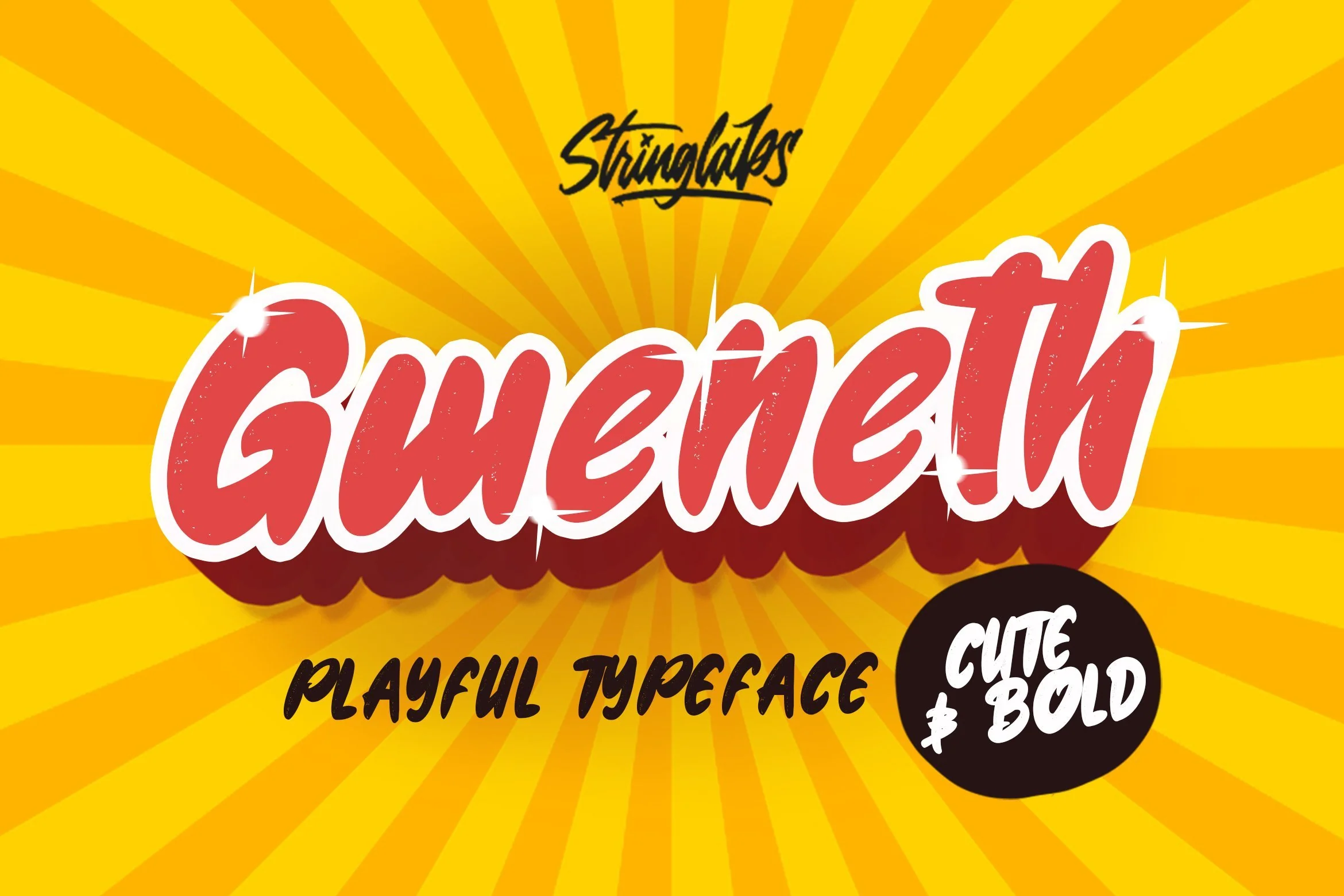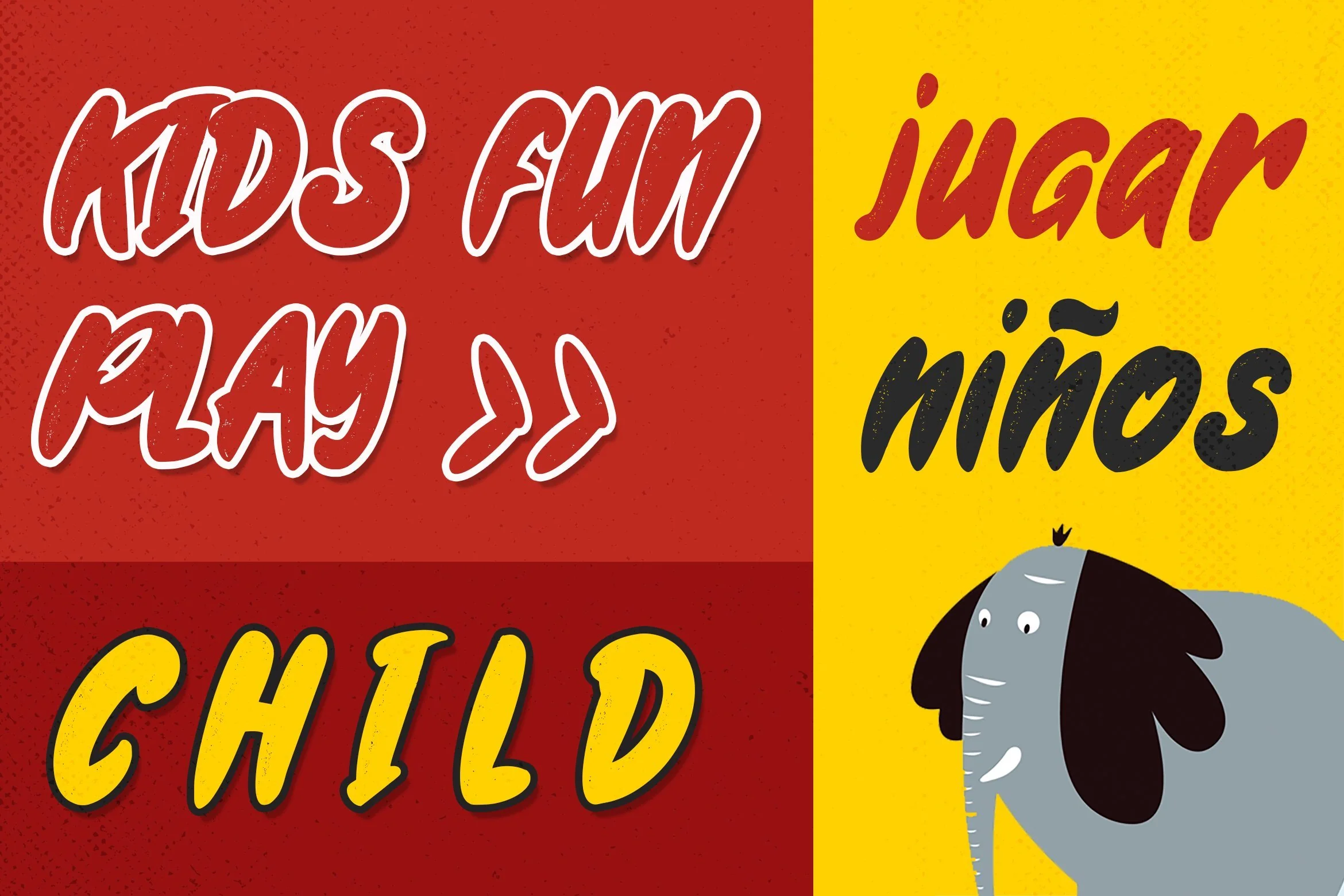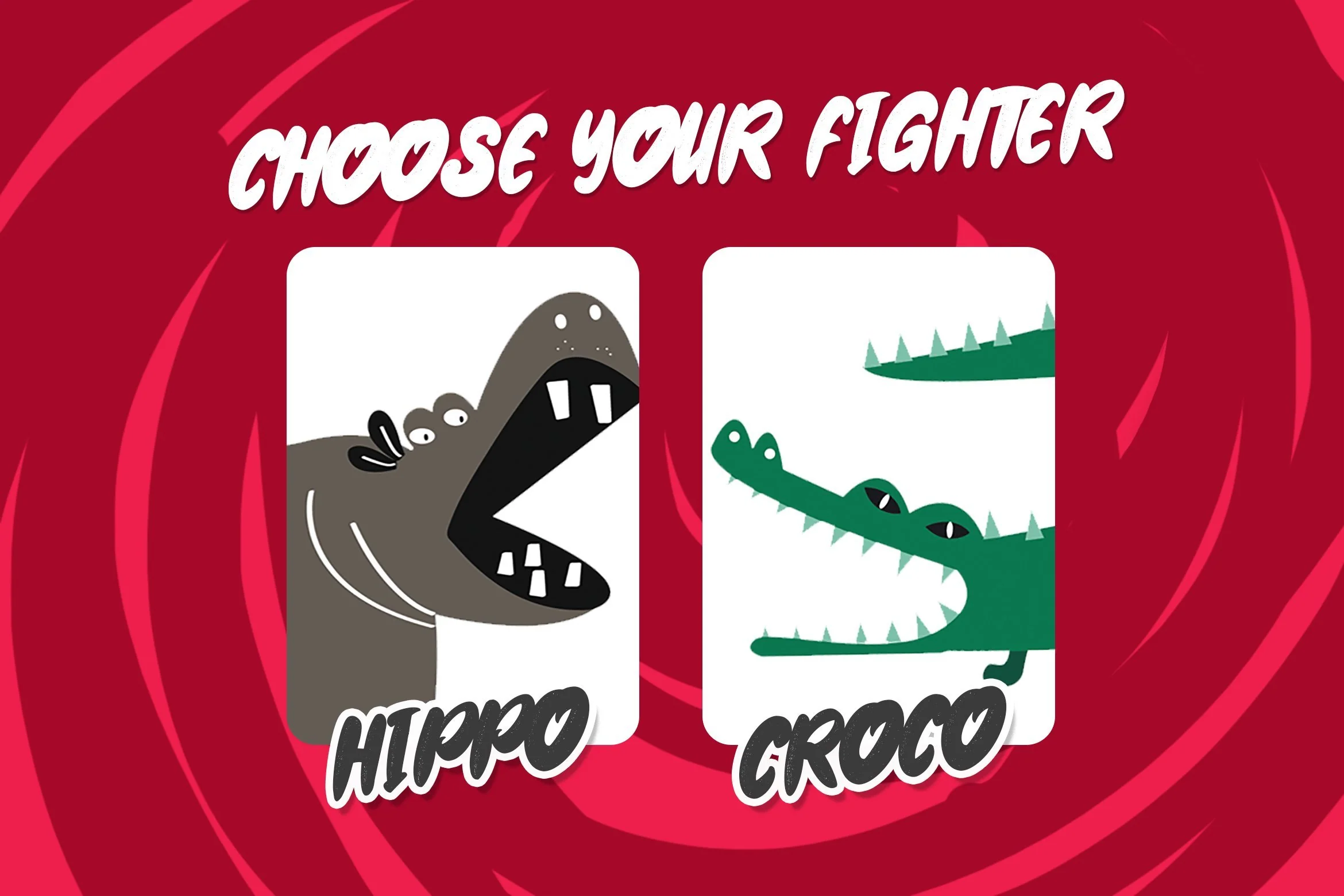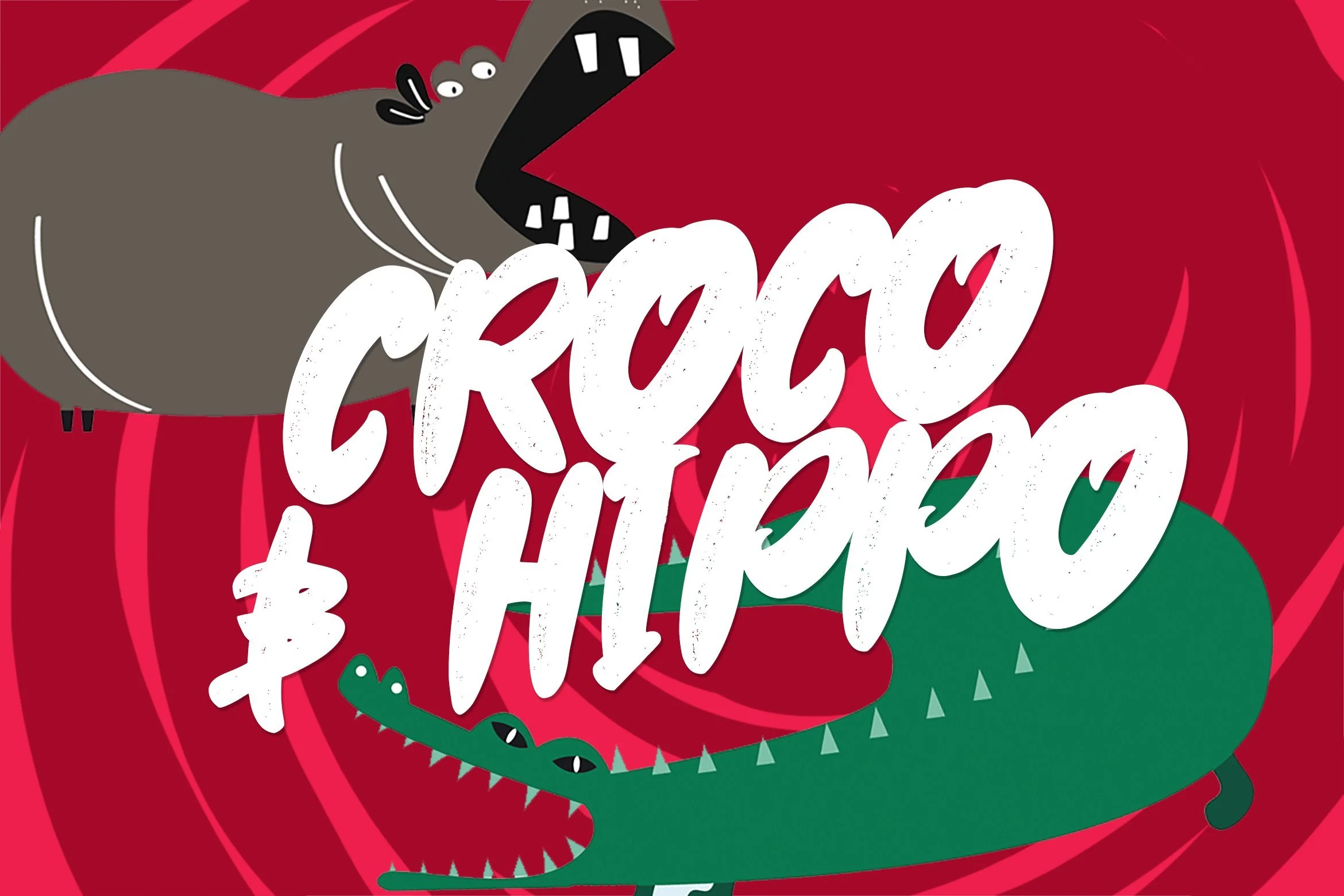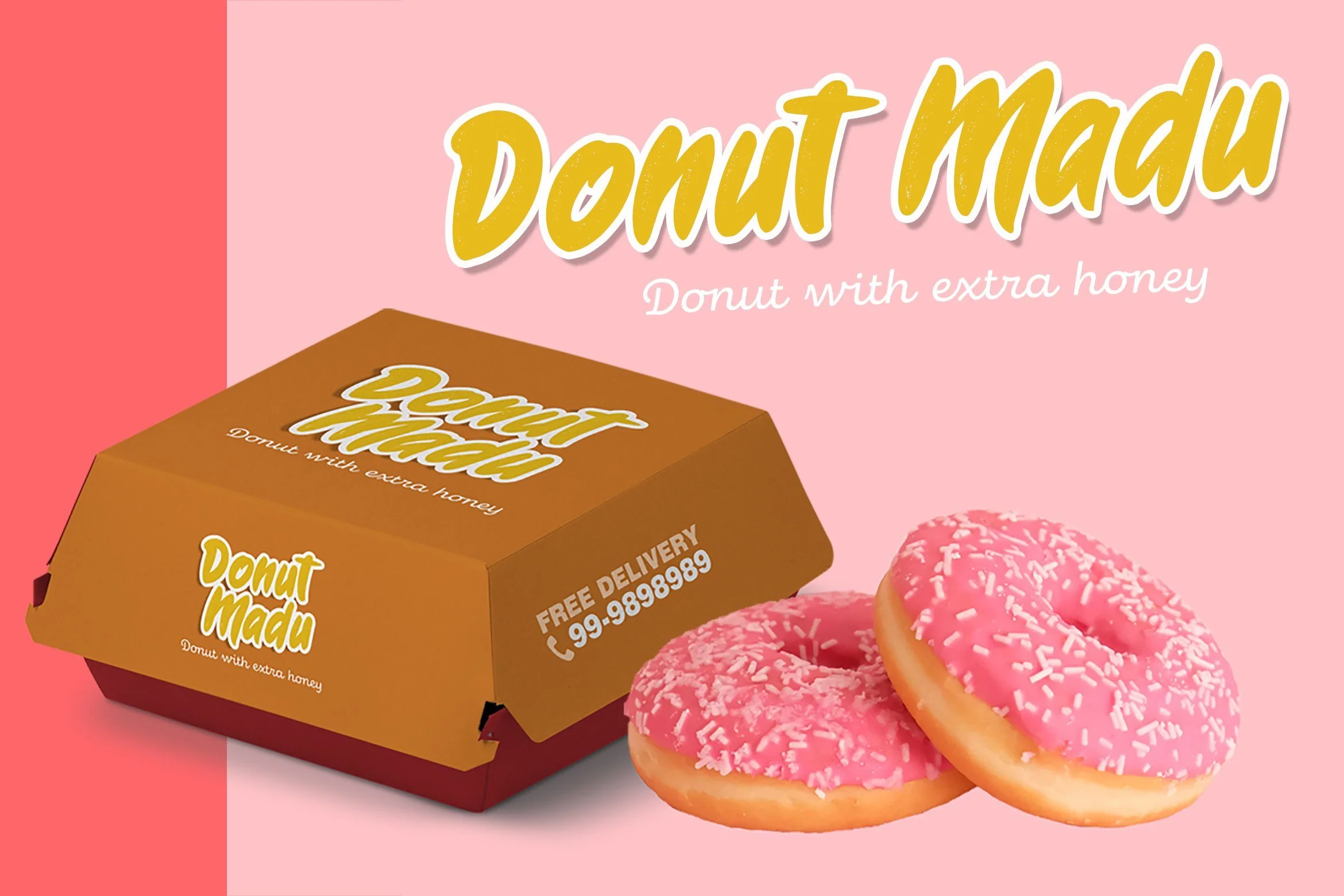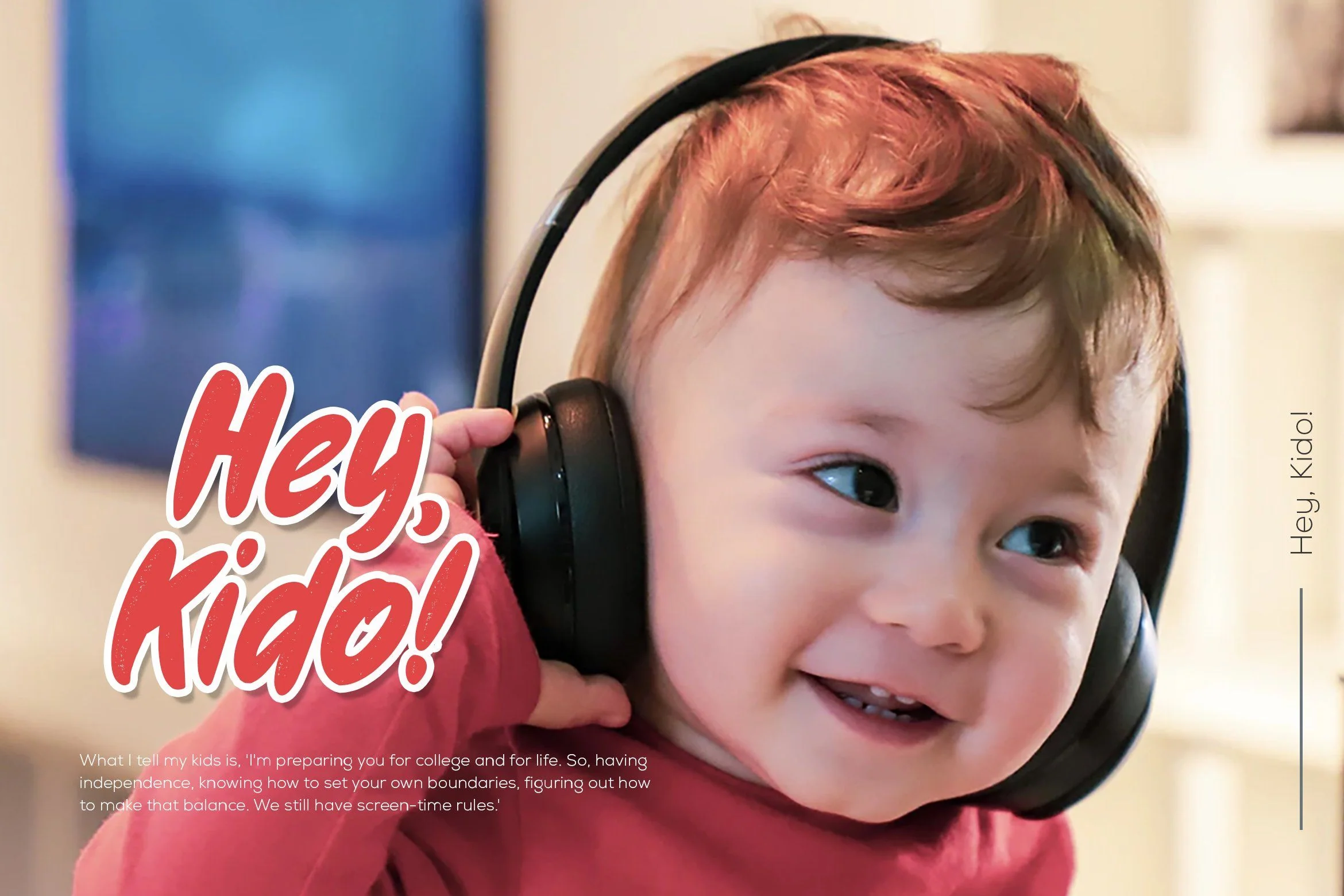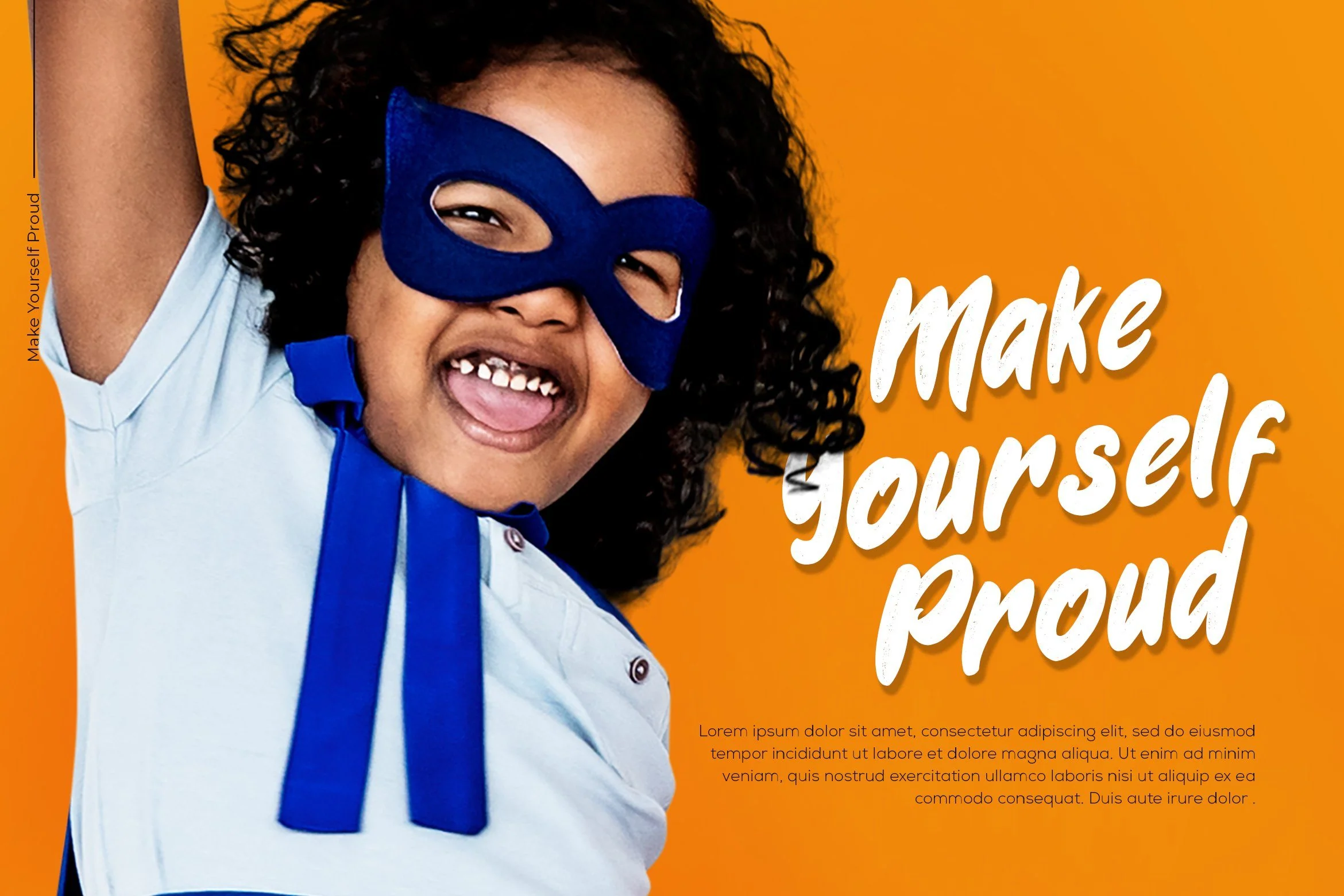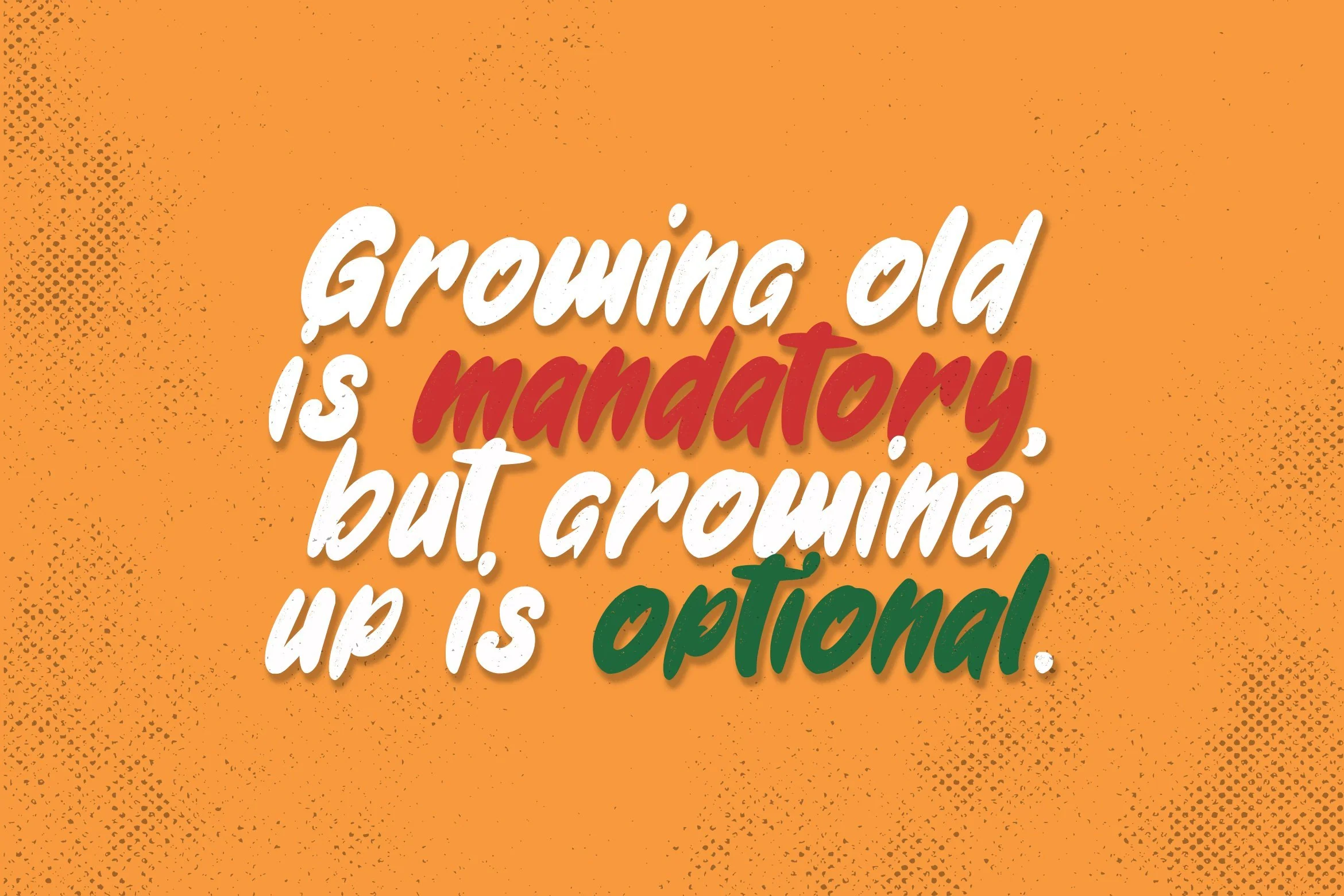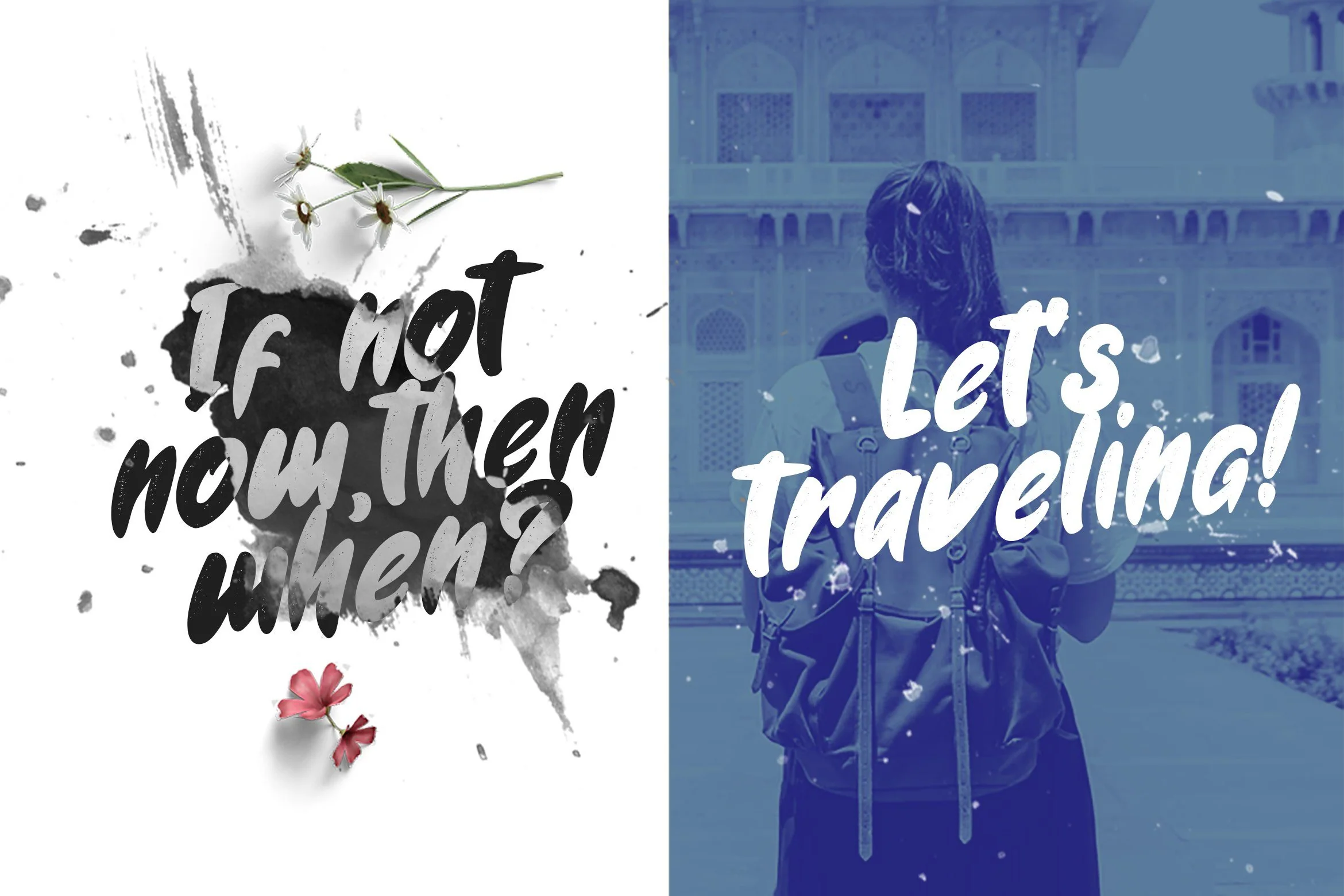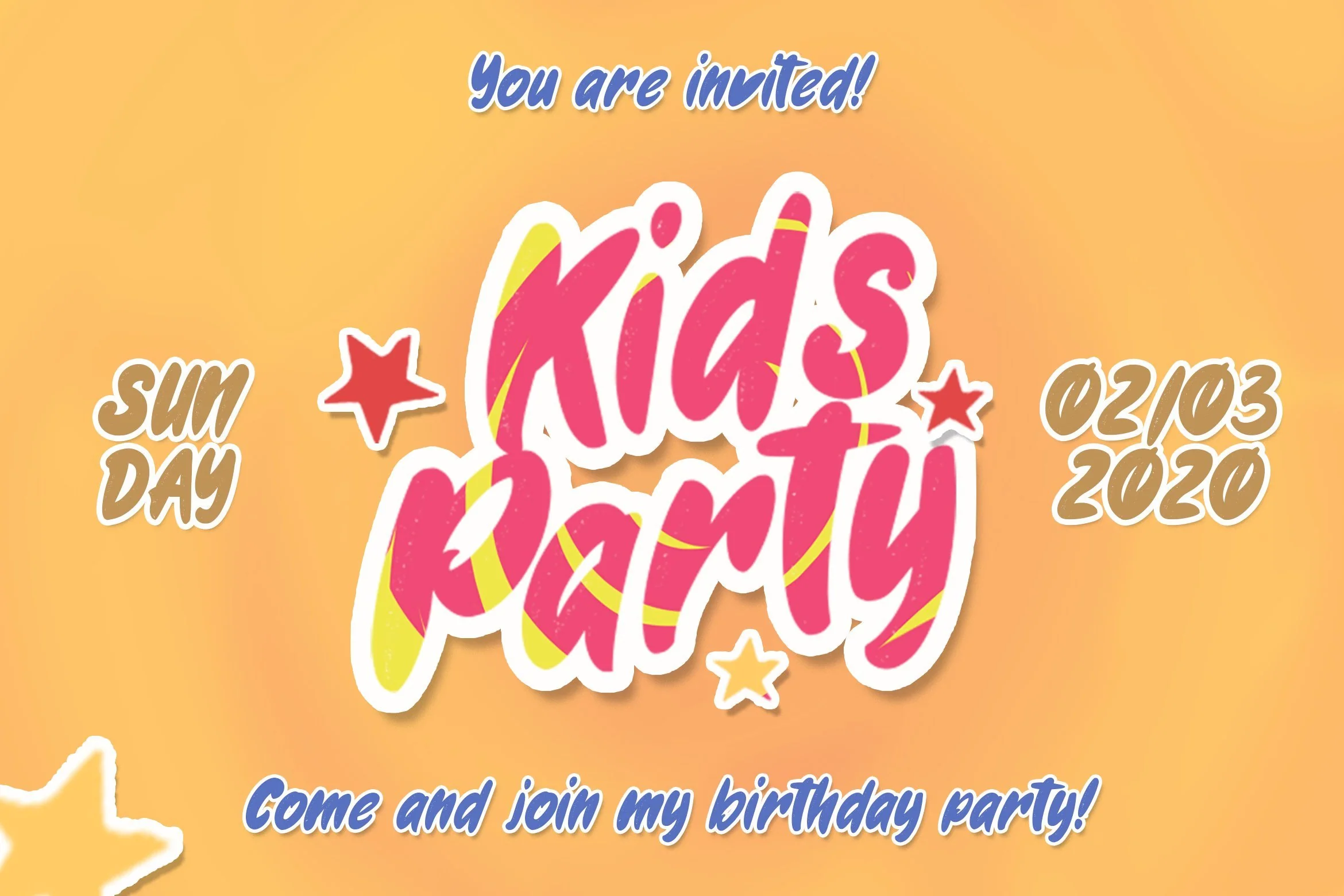
Gweneth - Playful Children Typeface
Introducing Gweneth - Playful Children Typeface
This font is perfect for those of you who want the style of children. Fonts Made specifically for purposes such as: Kindergarten, Birthday, Kid, Cartoon, Comic, Children, and Playground.
This Font Template contains Modern, Elegant, Creative, Professional and Unique Concept.
Introducing Gweneth - Playful Children Typeface
This font is perfect for those of you who want the style of children. Fonts Made specifically for purposes such as: Kindergarten, Birthday, Kid, Cartoon, Comic, Children, and Playground.
This Font Template contains Modern, Elegant, Creative, Professional and Unique Concept.